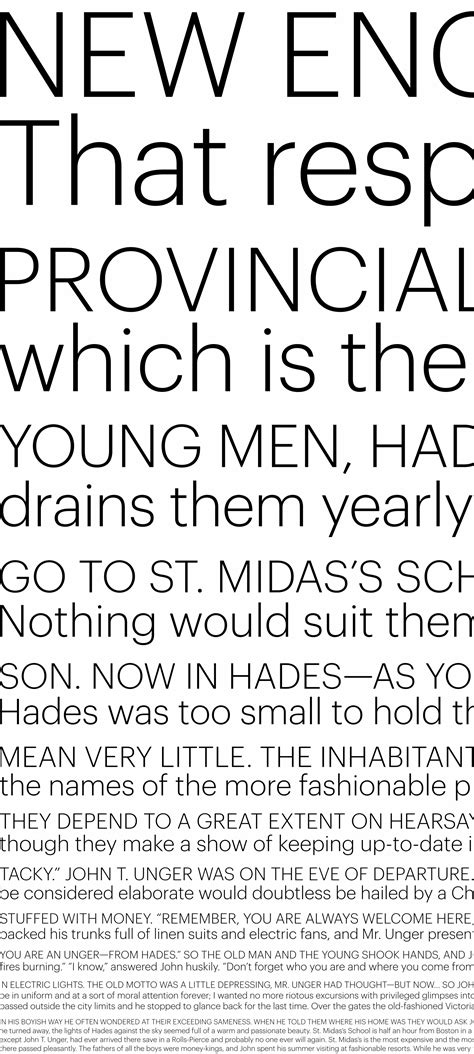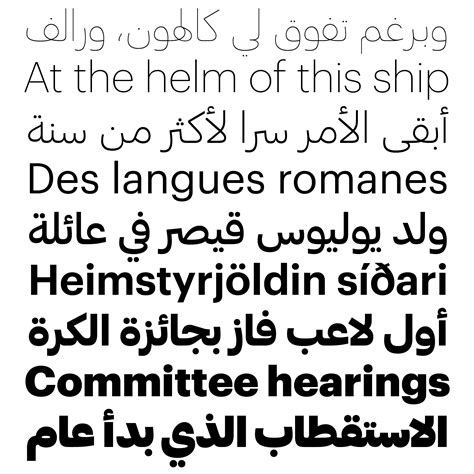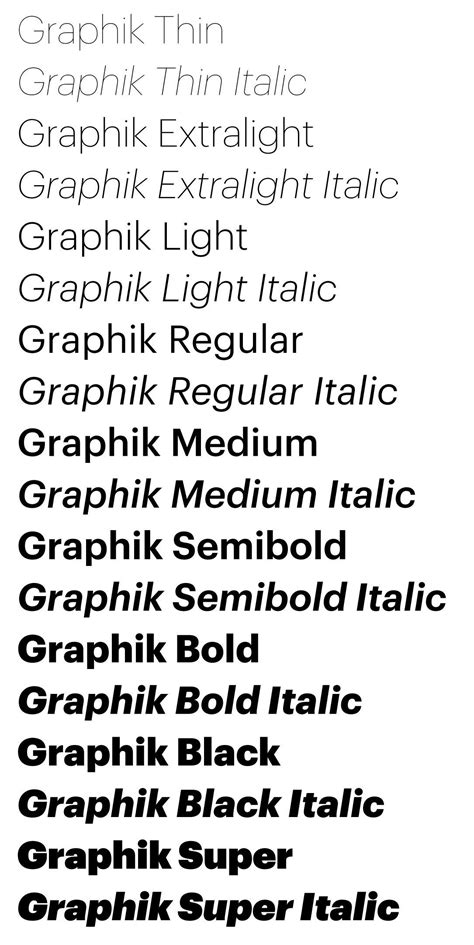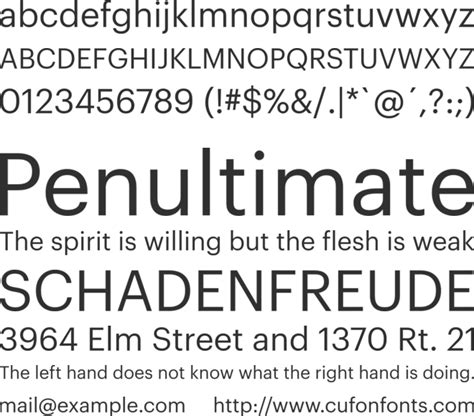
Download Font Graphik - Fonts — boogy brut, graphik. Web graphik sans serif font just personal use only, if you need for commercial use and full version please download in. Web looking for graphic fonts? Fonts — itc garamond, graphik. Graphik font christian schwartz, a swiss designer, created graphik in 2009—a versatile typeface lauded for its. Every font is free to download! Web making the web more beautiful, fast, and open through great typography Click to find the best 298 free fonts in the graphic style.
Fonts — boogy brut, graphik. Click to find the best 298 free fonts in the graphic style. Web graphik sans serif font just personal use only, if you need for commercial use and full version please download in. Every font is free to download! Fonts — itc garamond, graphik. Web making the web more beautiful, fast, and open through great typography Web looking for graphic fonts? Graphik font christian schwartz, a swiss designer, created graphik in 2009—a versatile typeface lauded for its.
Web making the web more beautiful, fast, and open through great typography Web looking for graphic fonts? Fonts — itc garamond, graphik. Fonts — boogy brut, graphik. Web graphik sans serif font just personal use only, if you need for commercial use and full version please download in. Graphik font christian schwartz, a swiss designer, created graphik in 2009—a versatile typeface lauded for its. Click to find the best 298 free fonts in the graphic style. Every font is free to download!
Web graphik sans serif font just personal use only, if you need for commercial use and full version please download in. Fonts — boogy brut, graphik. Graphik font christian schwartz, a swiss designer, created graphik in 2009—a versatile typeface lauded for its. Web making the web more beautiful, fast, and open through great typography Web looking for graphic fonts?
Fonts — itc garamond, graphik. Web looking for graphic fonts? Web graphik sans serif font just personal use only, if you need for commercial use and full version please download in. Every font is free to download! Web making the web more beautiful, fast, and open through great typography
Fonts — itc garamond, graphik. Web looking for graphic fonts? Web graphik sans serif font just personal use only, if you need for commercial use and full version please download in. Fonts — boogy brut, graphik. Graphik font christian schwartz, a swiss designer, created graphik in 2009—a versatile typeface lauded for its.
Graphik Semibold Font Free Download
Fonts — itc garamond, graphik. Web graphik sans serif font just personal use only, if you need for commercial use and full version please download in. Every font is free to download! Web making the web more beautiful, fast, and open through great typography Web looking for graphic fonts?
Graphik font free download for WEB
Web making the web more beautiful, fast, and open through great typography Web graphik sans serif font just personal use only, if you need for commercial use and full version please download in. Graphik font christian schwartz, a swiss designer, created graphik in 2009—a versatile typeface lauded for its. Every font is free to download! Click to find the best.
Graphik Font Family 18 Fonts for 400 » Free Download Vector Stock
Fonts — boogy brut, graphik. Web looking for graphic fonts? Web making the web more beautiful, fast, and open through great typography Click to find the best 298 free fonts in the graphic style. Graphik font christian schwartz, a swiss designer, created graphik in 2009—a versatile typeface lauded for its.
Fonts — Itc Garamond, Graphik.
Graphik Font Christian Schwartz, A Swiss Designer, Created Graphik In 2009—A Versatile Typeface Lauded For Its.
Web looking for graphic fonts? Web graphik sans serif font just personal use only, if you need for commercial use and full version please download in.